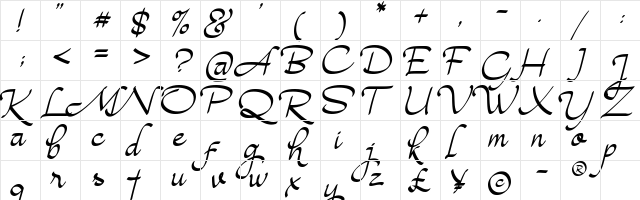
Magenta Rose Regular
| Designer | diq!" darmawan |
Design Context for Magenta Rose Typeface
Magenta Rose takes a measured approach to typography — its balanced proportions and neutral character make it a reliable workhorse for both digital and print work.